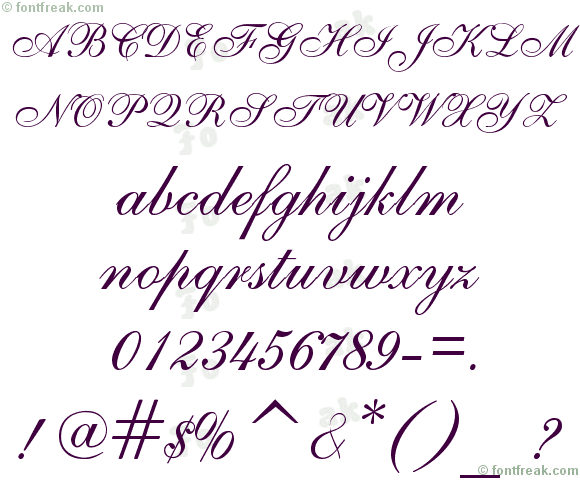
ALS Script
About ALS Script
The ALS Script font, designed by Digital Graphic Labs in 1998, embodies the elegance and fluidity characteristic of script fonts. This freeware typeface features graceful, sweeping strokes that evoke a sense of sophistication and artistry. With its moderate contrast between thick and thin lines, ALS Script strikes a balance between legibility and decorative flair, making it versatile for various applications.
Visually, the font showcases a dynamic cursive style, with flowing connections between letters that create a seamless and inviting appearance. The stroke weight varies gently, adding a touch of personality while maintaining clarity. The spacing between characters is thoughtfully designed to ensure readability, even in longer texts. Decorative elements like loops and swirls enrich its aesthetic, making it an ideal choice for projects that require a personal touch.
ALS Script is particularly well-suited for wedding invitations, where its romantic style can beautifully complement the theme of love and celebration. It also shines in greeting cards, adding warmth and a heartfelt sentiment to personal messages. Restaurant menus can benefit from its elegant appearance, enhancing the overall dining experience. Additionally, ALS Script can be used effectively in branding materials for boutique businesses, where a distinctive and stylish font can set the tone for the brand's identity.
Targeting graphic designers, small business owners, and content creators, ALS Script provides an artistic option for those looking to convey sophistication and charm in their projects. Its versatility and timeless appeal make it an excellent choice for a wide range of creative endeavors. For those interested in incorporating this lovely typeface into their work, an ALS Script font free download is readily available, allowing users to access its beauty without any cost. The unique characteristics of ALS Script truly make it stand out, offering a blend of elegance and functionality that can elevate any design.